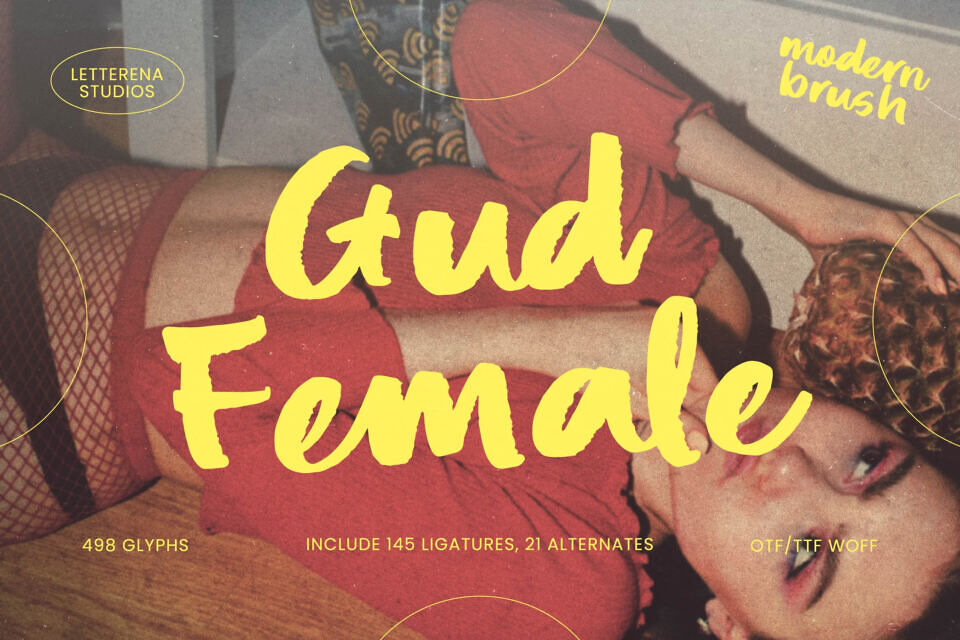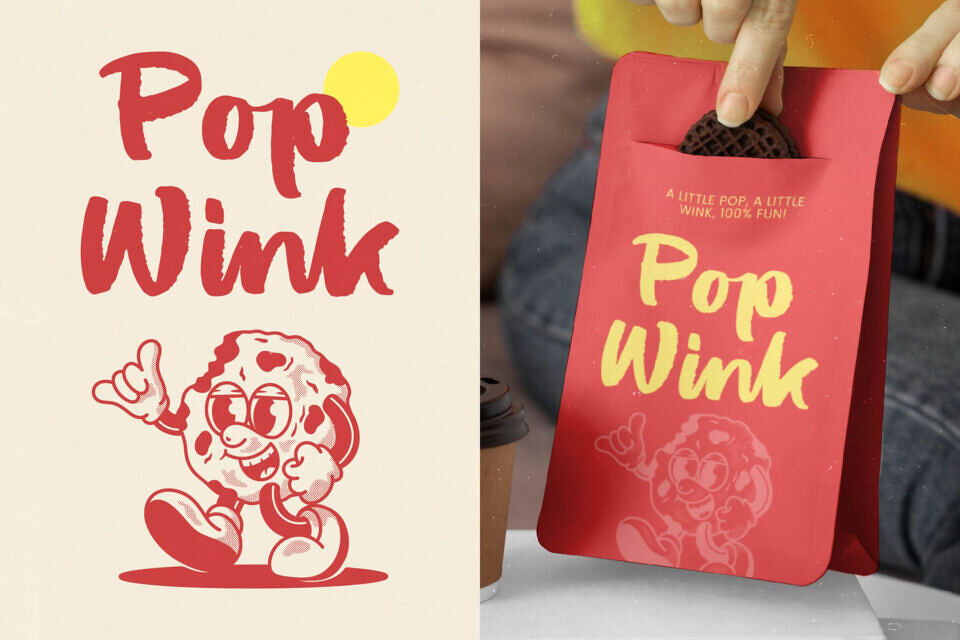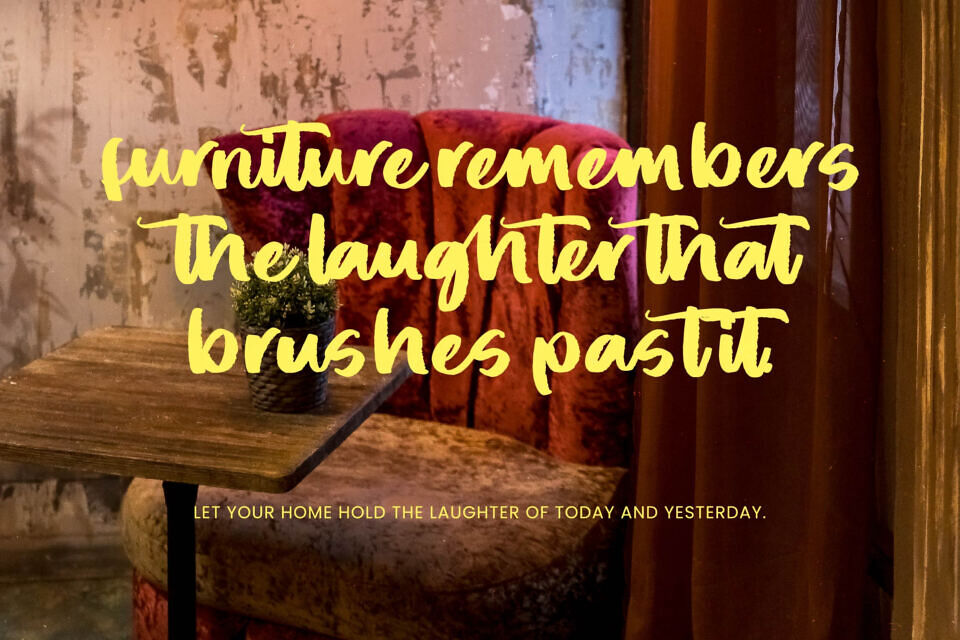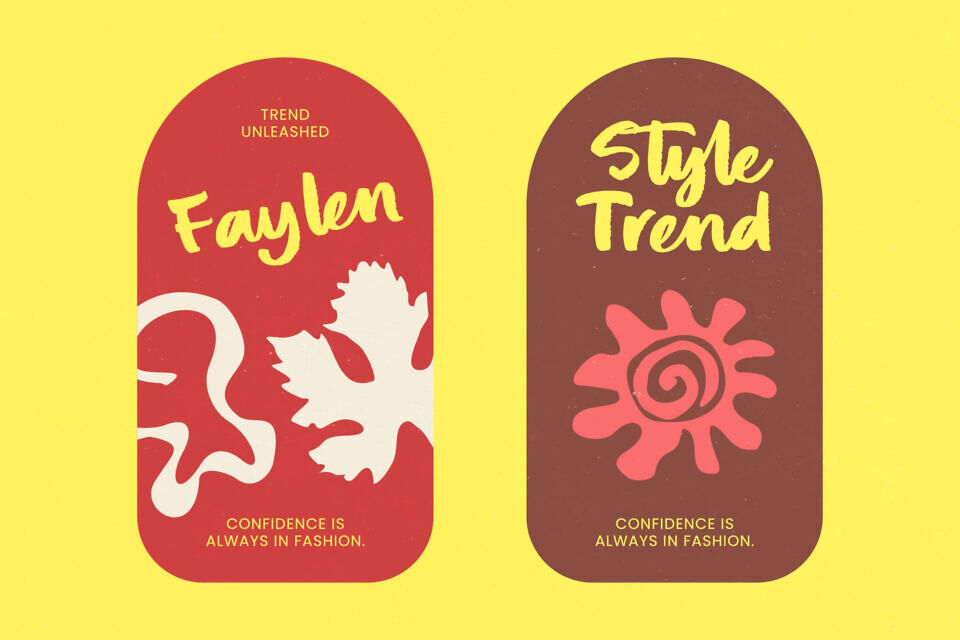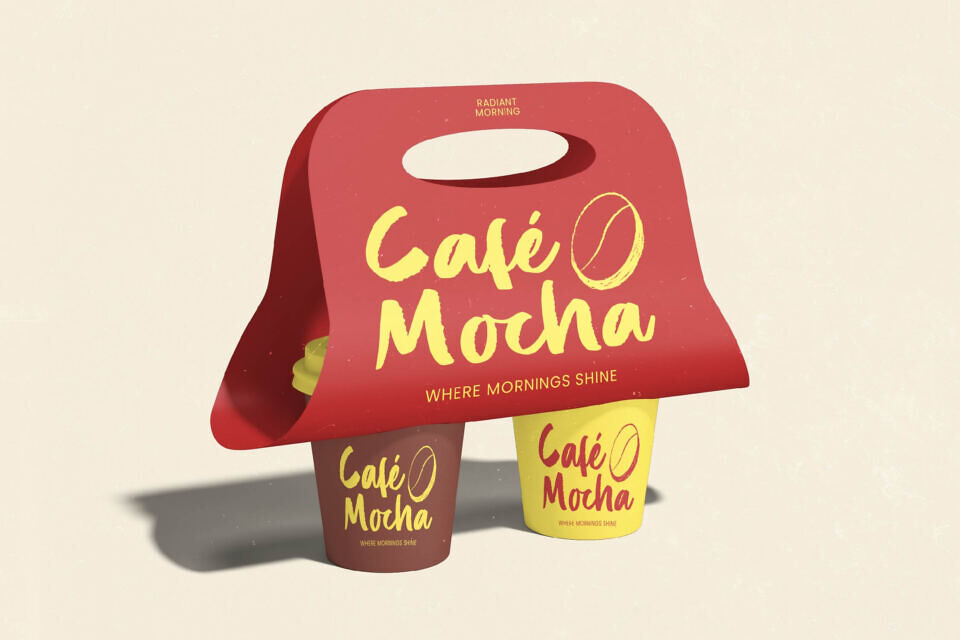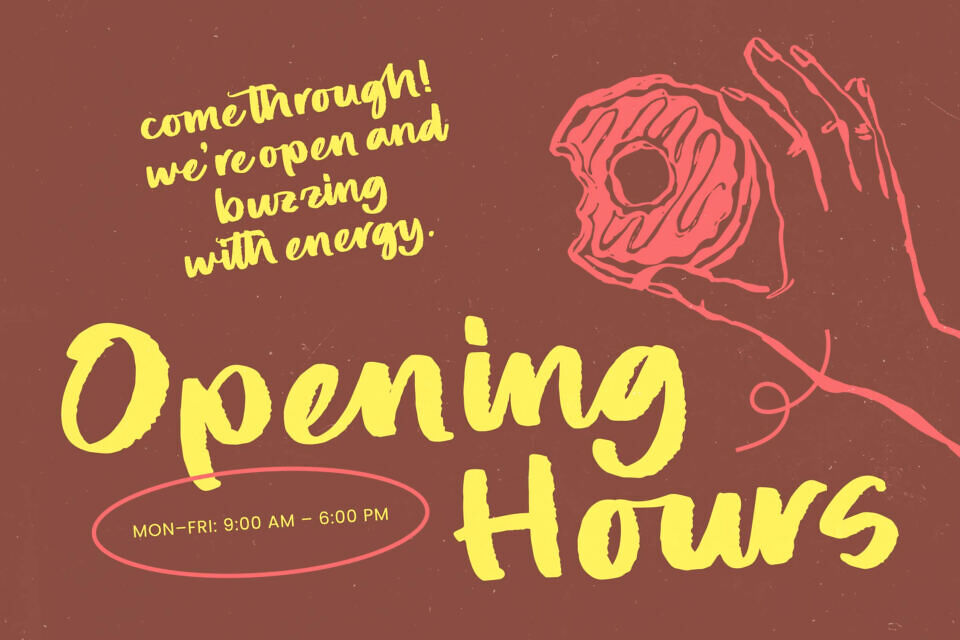
Gud Female Font
Gud Female Version is a bold modern brush-style typeface with expressive, hand-painted strokes and a dynamic, organic flow. Its slightly condensed letterforms and energetic curves create a strong visual impact, making it ideal for branding, fashion, friendly and playful designs, posters, and social media design.
The font blends raw brush texture with a contemporary aesthetic, delivering a stylish and confident personality for eye-catching headlines and creative visual storytelling.